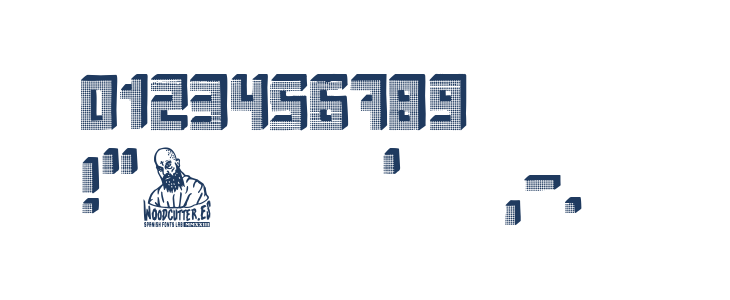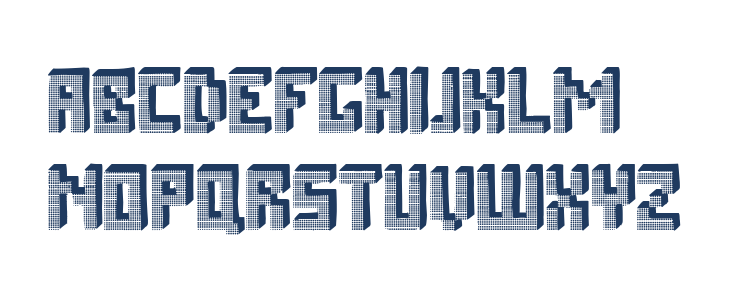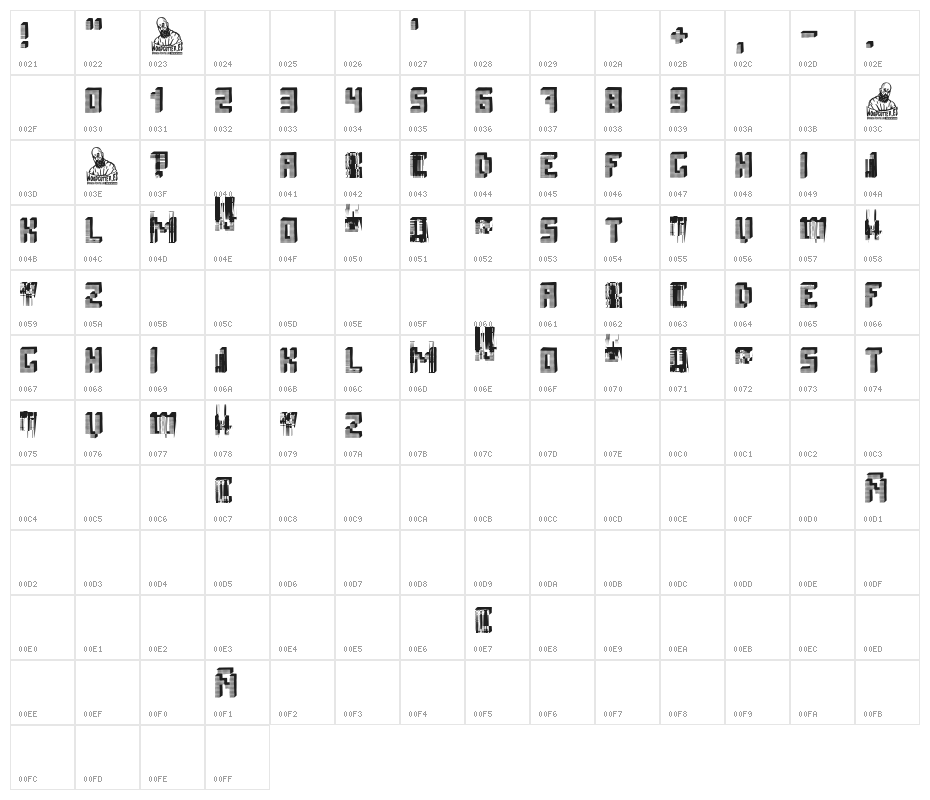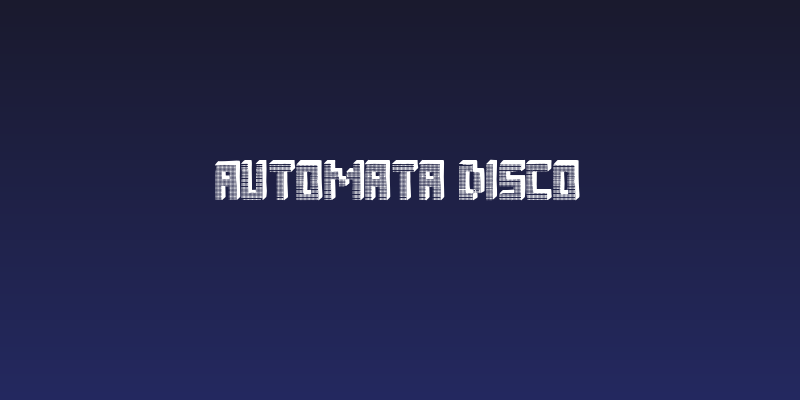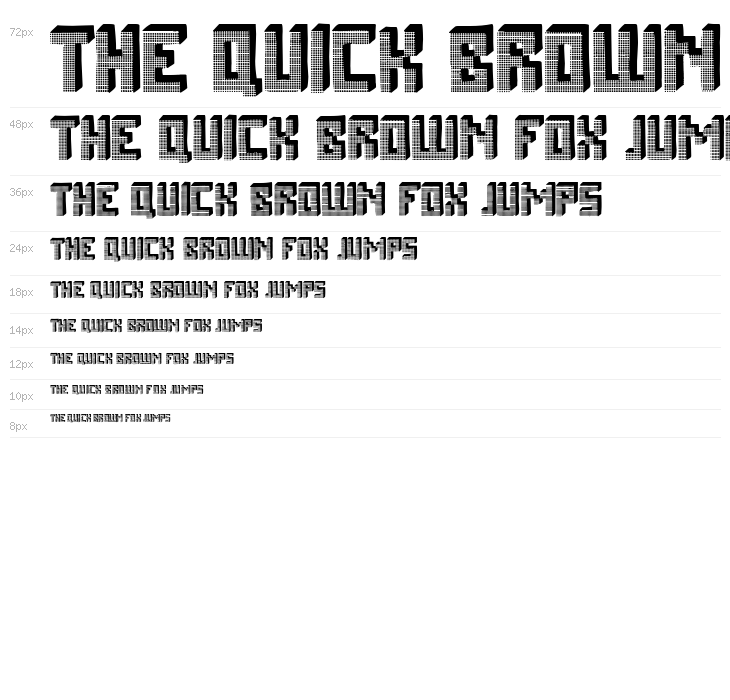
Automata Disco Font
Automata Disco Description
A bold, geometric display font with a three-dimensional block effect and a halftone dot pattern filling the letterforms, giving it a retro-futuristic and dynamic appearance. The characters are uppercase only, with sharp corners and a strong sense of depth created by the shadowed sides.
| Overall Style | Retro, Futuristic, Decorative |
| Proposed Projects | Posters, music event flyers, retro-themed branding, video game titles, album covers. |